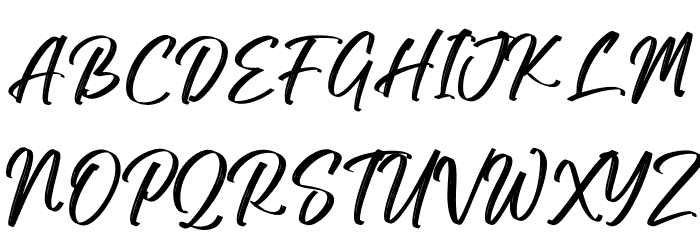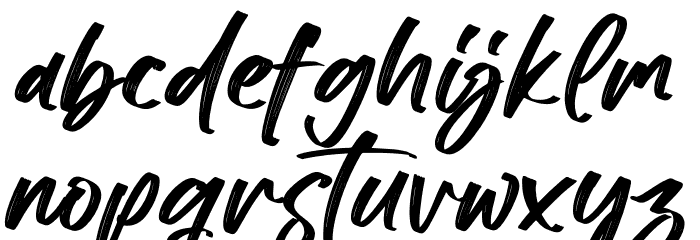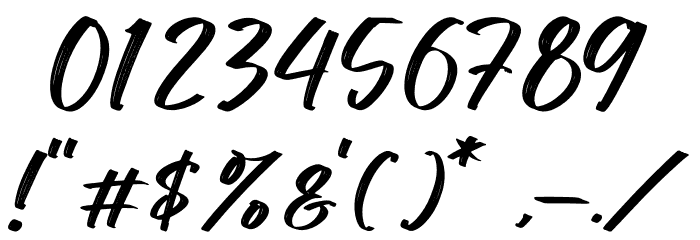
Black Stamp Font
This font exudes a bold and dynamic handwritten style, characterized by its sweeping strokes and energetic flair. The letters are crafted with a brush-like appearance, giving them a textured and artistic quality. The uppercase and lowercase letters maintain a consistent flow, while the numerals and special characters complement the overall aesthetic. The font's expressive nature makes it suitable for creative and impactful designs, where a sense of movement and personality is desired. Its unique style captures attention and adds a personal touch to any project.
A bold, dynamic handwritten font with a brush-like texture.
- Font: Black Stamp
- Proposed Projects: Ideal for branding, posters, invitations, and creative projects that require a personal and artistic touch.
- Use Case: Logos, Headlines, Posters